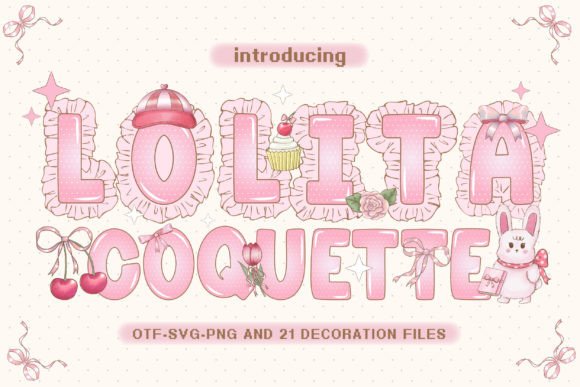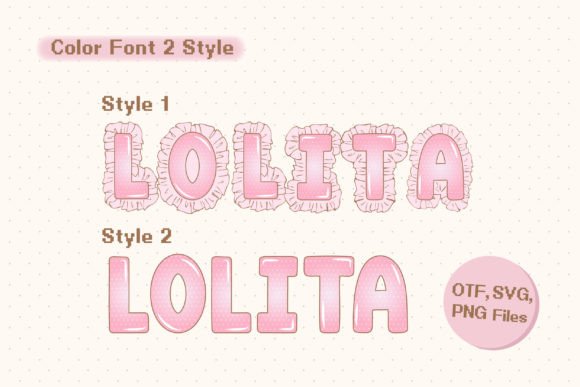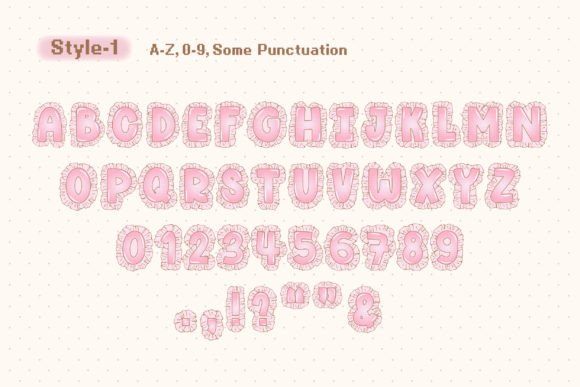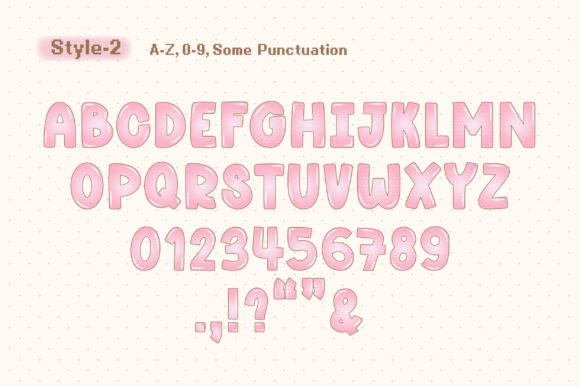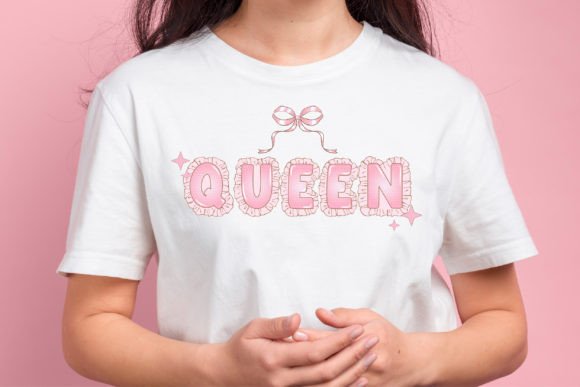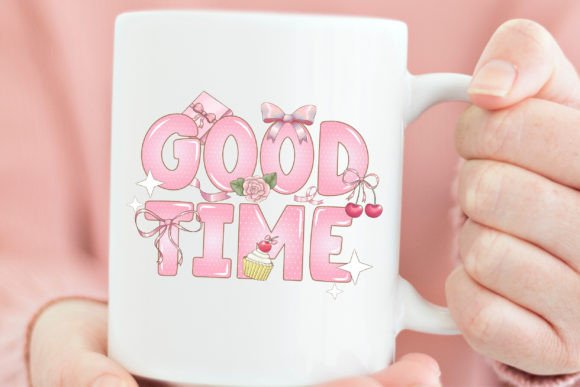
Lolita Coquette Font
Introducing “Lolita Coquette,” a font that embodies the adorable charm of coquette and lolita styles, enhancing the cuteness of your designs. With 2 font styles to choose from, this font offers versatility for various creative projects. The intricate details of lace and pink ruffles are complemented by a collection of cute clip art, allowing you to create enchanting designs. Perfect for custom DIY craft projects, custom names, sublimations, posters, and more, “Lolita Coquette” is the ideal choice for adding a touch of sweetness and whimsy to your creative works.